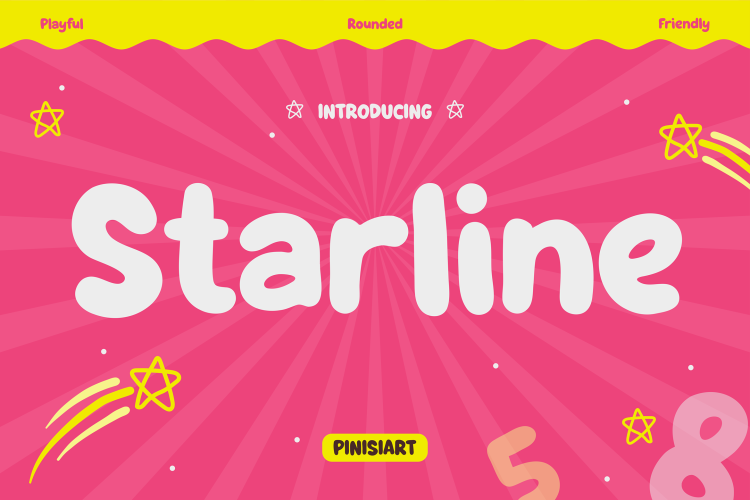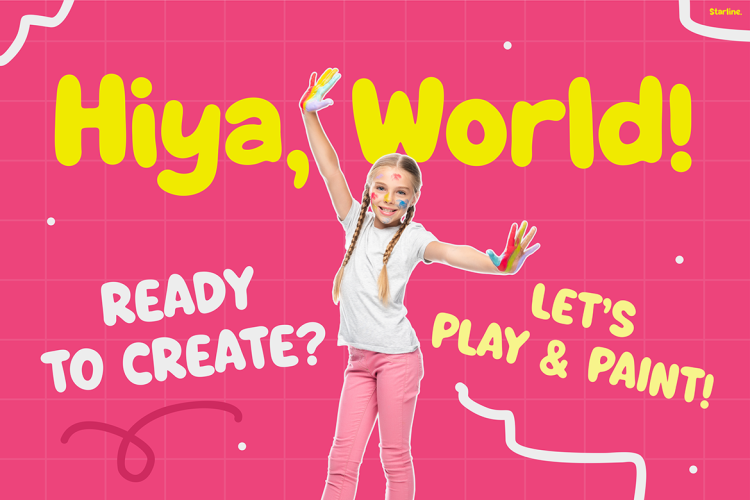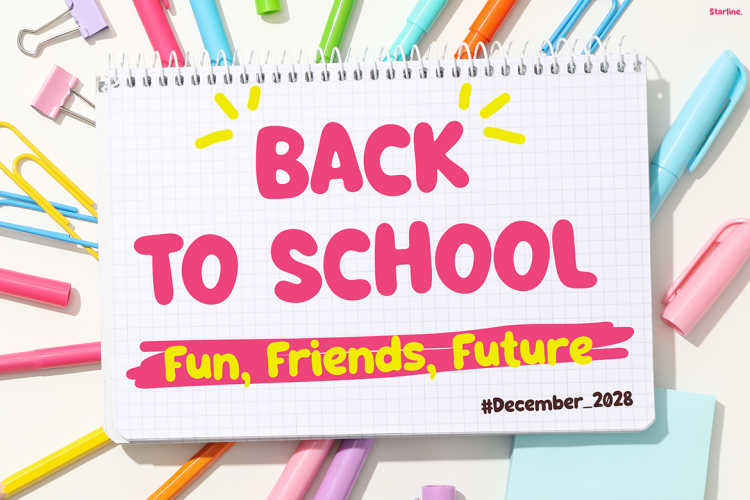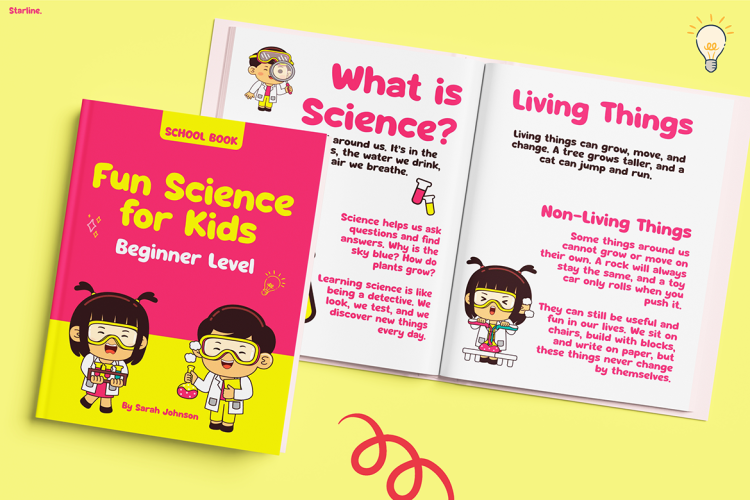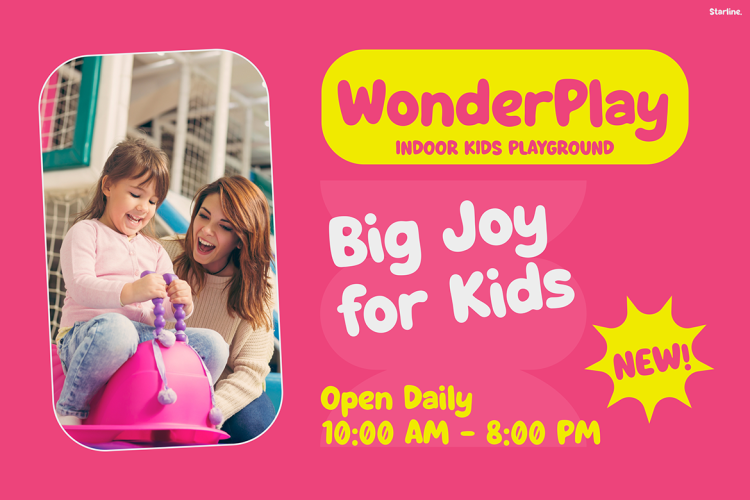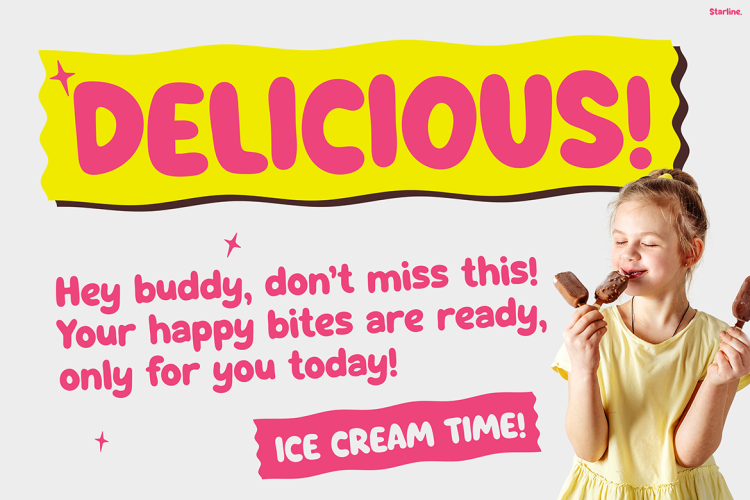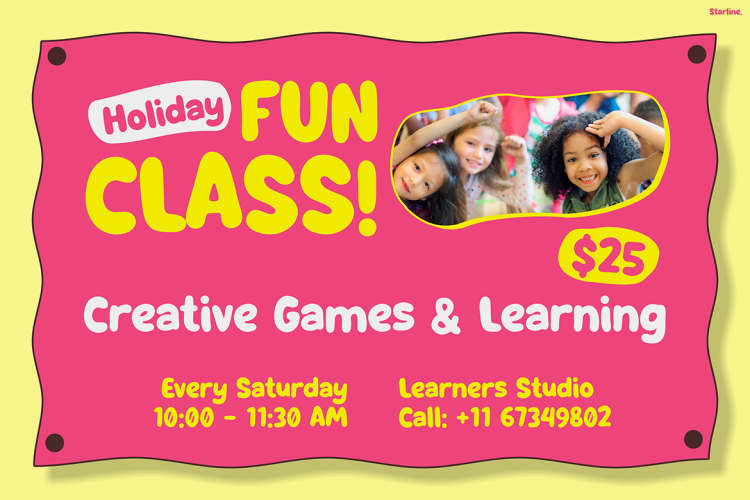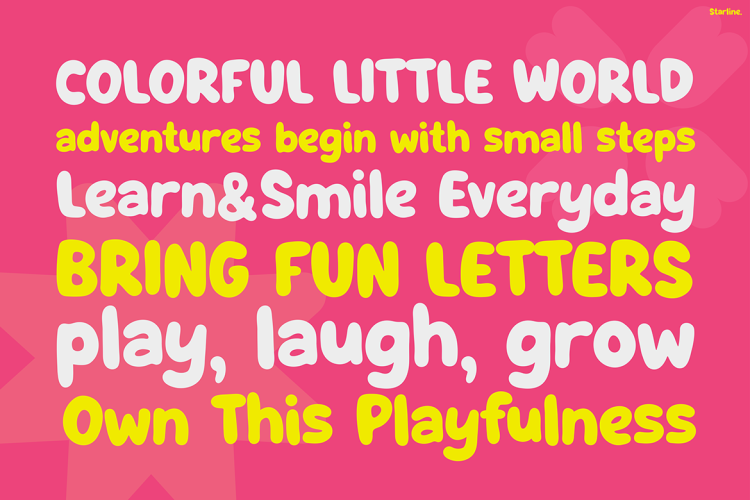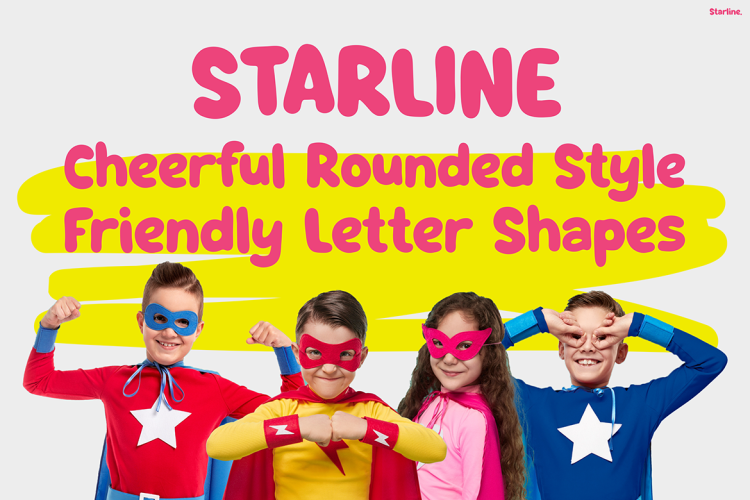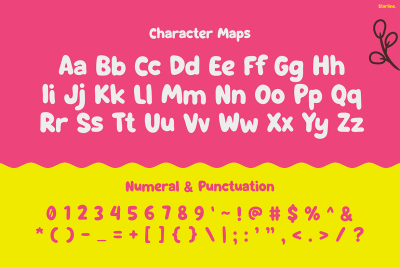
Kids Font Starline โ Cheerful, Playful, and Eye-Catching
Kids Font Starline is a delightful typeface made to bring joy and excitement to any project. Its rounded shapes, bold strokes, and cheerful curves create a friendly look. Moreover, unlike ordinary fonts, Starline combines playful style with clear readability. Each letter feels full of energy and sparks imagination. Therefore, it is perfect for capturing childrenโs attention and boosting creativity. As a result, whether you design posters, books, or branding, this font makes text come alive with fun and color.
Why Itโs Perfect for You
Kids Font Starline is created for people who want fun and professionalism in one design. Because of its bold yet approachable style, it works well for teachers making worksheets, schools preparing learning posters, or parents creating birthday invitations. In addition, graphic designers can use it to brand toys, snacks, or kidsโ clothing. Bloggers and family creators will also find it useful. On the other hand, if you focus on parenting or early education, this font helps you set a warm and playful tone.
Suitable For:
Teachers & educators creating worksheets, flashcards, or posters
Daycares, preschools, and play centers making banners and brochures
Kidsโ product branding like toys, packaging, or clothing tags
Content creators and bloggers with a family-friendly style
Parents designing party invites, projects, or DIY crafts
ย Make Your Projects Shine!
With Kids Font Starline, you get more than just letters. You gain a cheerful design companion that makes every project shine. Furthermore, it adds playful energy and turns words into a fun adventure for children and adults alike. Because of this, thereโs no need to use plain fonts anymore. Instead, choose one that lights up your designs with happiness. In conclusion, bring your projects to life, inspire young minds, and let creativity bloom. Kids Font Starline is ready to become your next design essential.